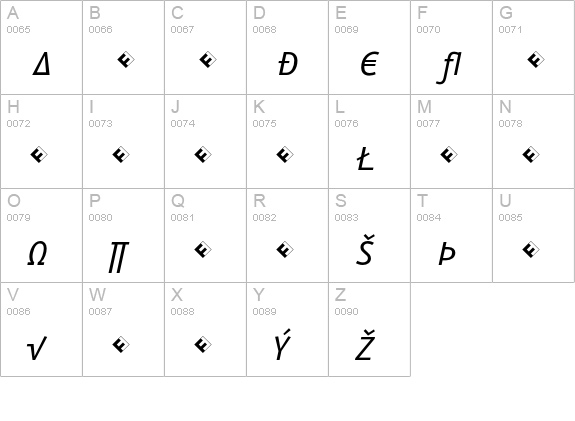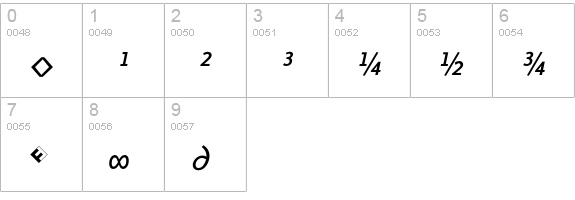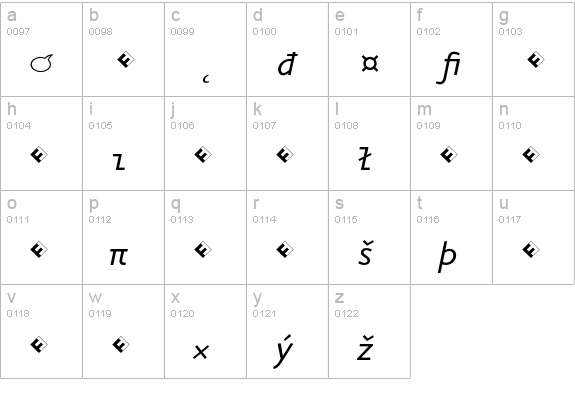
Eureka Mono Exp Italic is a distinctive, italic variant in the Eureka typeface family \xE2\x80\x94 well suited to design and typography projects.
The Eureka Mono Exp Italic font is a sleek and modern typeface that exudes sophistication and elegance. With its unique italic style and elongated letterforms, this font is perfect for adding a touch of sophistication to any design project. Whether you're creating a stylish logo, designing a sleek website, or crafting eye-catching marketing materials, the Eureka Mono Exp Italic font is sure to make a statement. The best part? This gorgeous font is completely free to download at FontsMarket.com. That's right - you can elevate your designs with this exquisite typeface without spending a dime. So why wait? Head over to FontsMarket.com now and download the Eureka Mono Exp Italic font to take your projects to the next level.